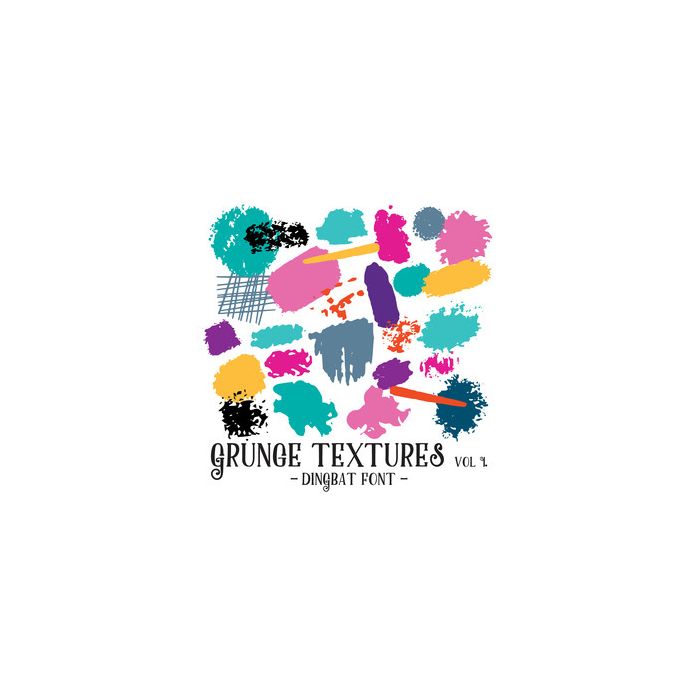
Grunge Textures Hand Drawn Paint, Texture and Effect Font, with 26 grungy effects. All dingbats are allocated to upper and lowercase letters and can be accessed via the glyphs panel or character map.